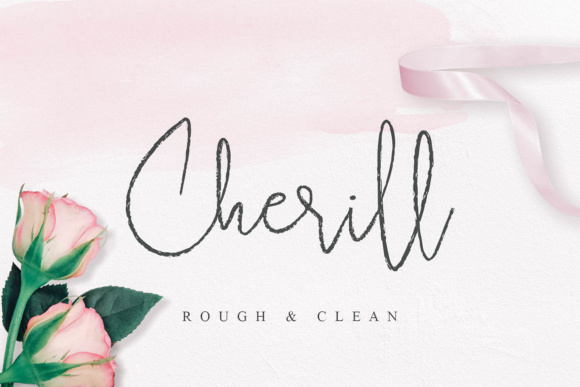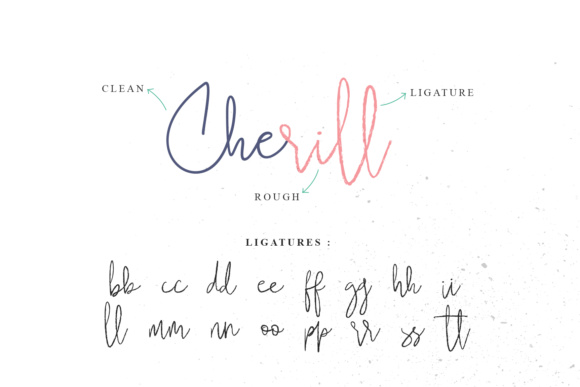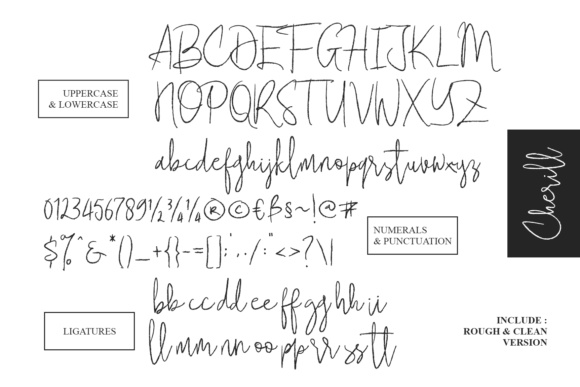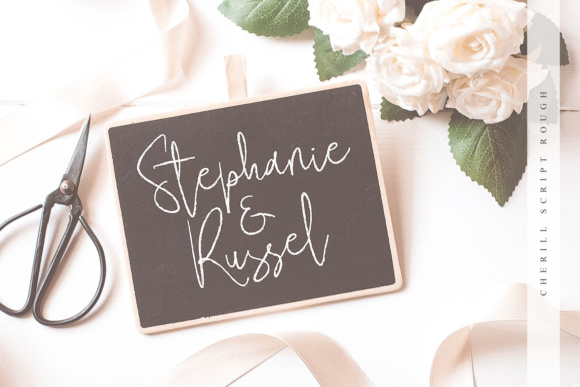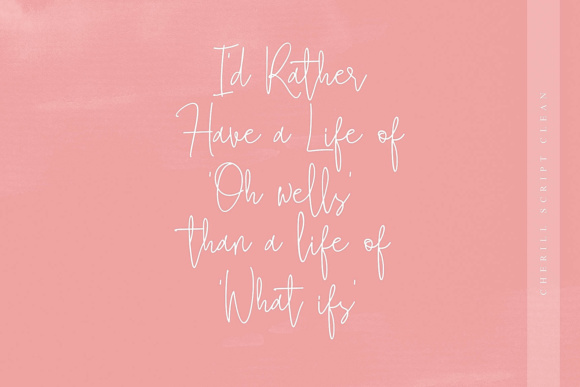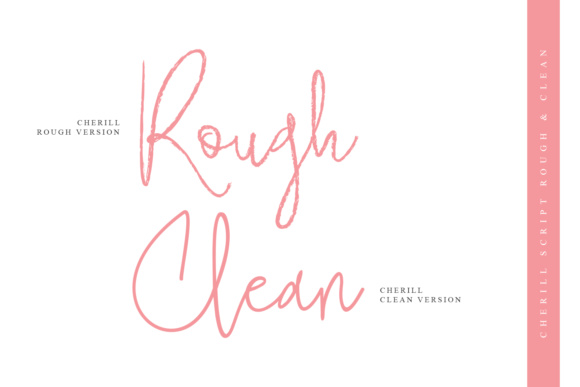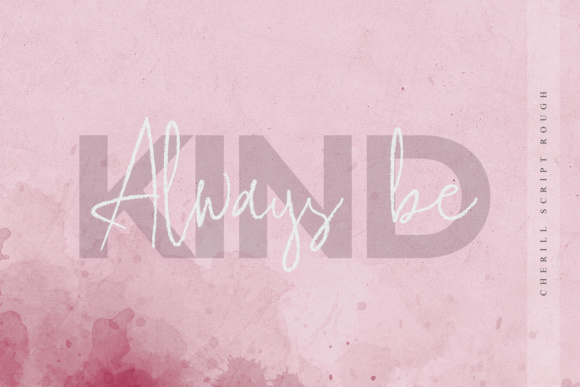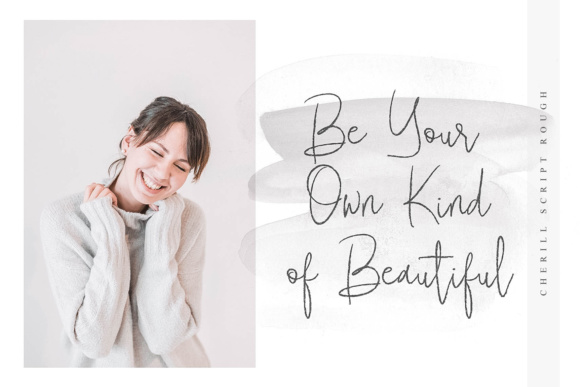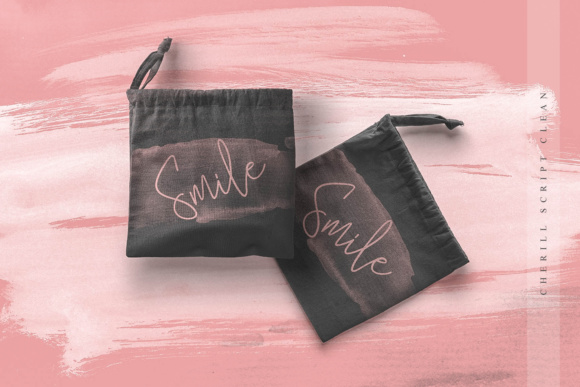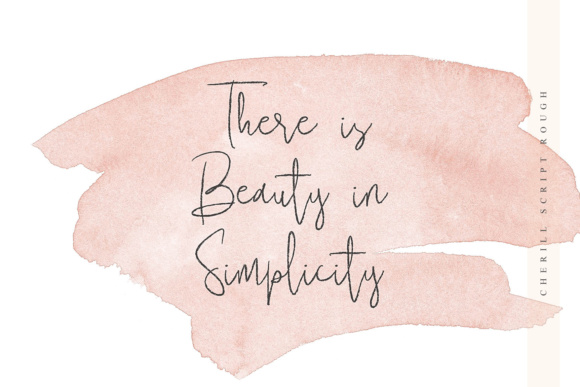
Cherill Font
About Cherill Font
Cherill is stunning signature font, ideal for headlines and displays of various styles. This font comes in a clean version as well as rough version so you can use the style that suits your projects most.